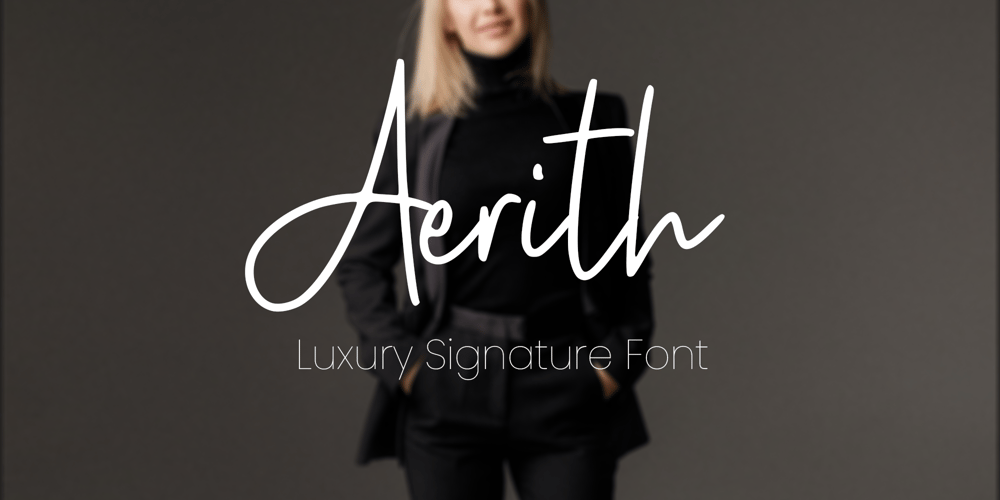
Aerith Font Family was designed by Heri Imanudin and published by Krafted. Aerith contains 1 styles and family package options. Introducing Aerith – A Signature FontAn elegant, graceful, yet simplistic cursive font.Inspire your audience, clients, or guests with this stylish, handwritten font that can be used for almost every platform such as websites, social media, pinterest, printed cards and many more!Aesthetically pleasing handwritten cursive font, just for beautiful you!What you’ll get: Multilingual & Ligature Support Full sets of Punctuation and Numerals Compatible with: Adobe Suite Microsoft Office KeyNote Pages Software Requirements: The fonts that you’ll receive in the pack are widely supported by most software. In order to get the full functionality of the selection of standard ligatures (custom created letters) in the script font, any software that can read OpenType fonts will work. We hope you enjoy this font and that it makes your branding sparkle! Feel free to reach out to us if you’d like more information or if you have any concerns.